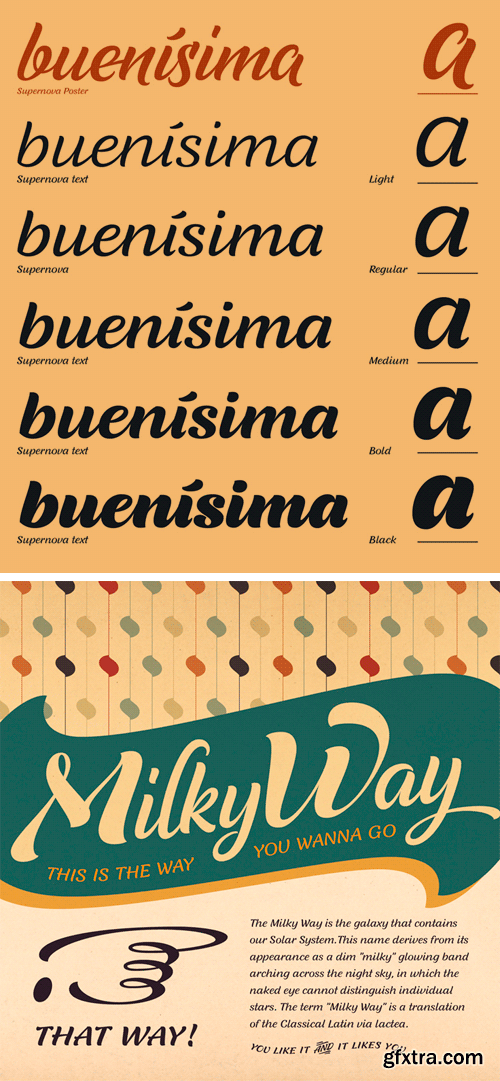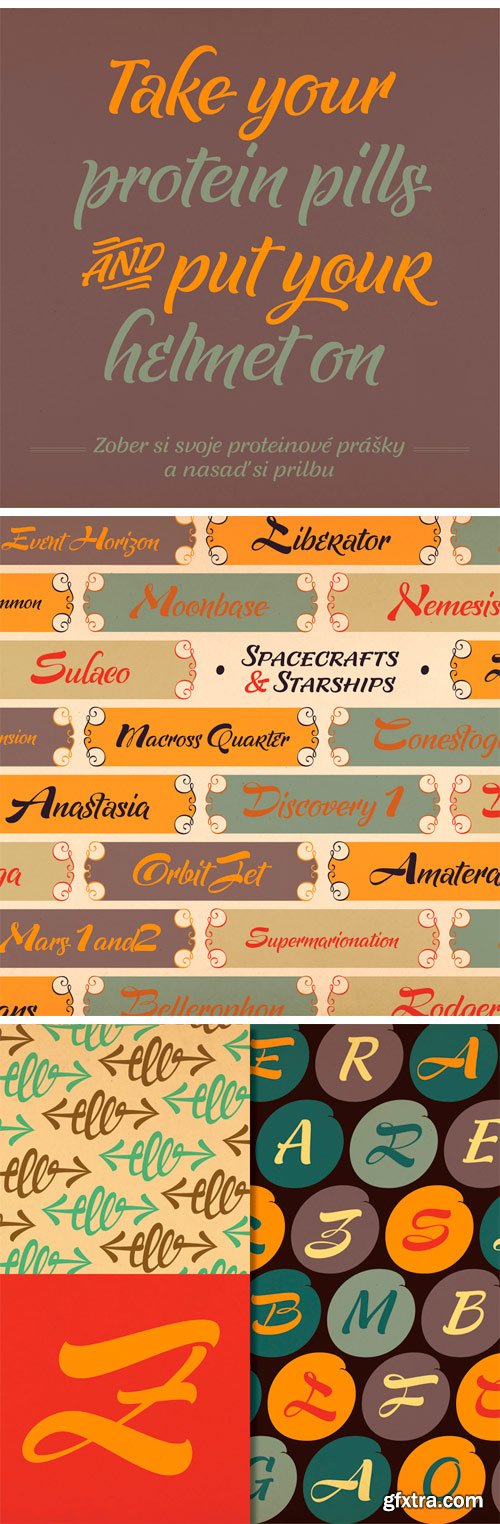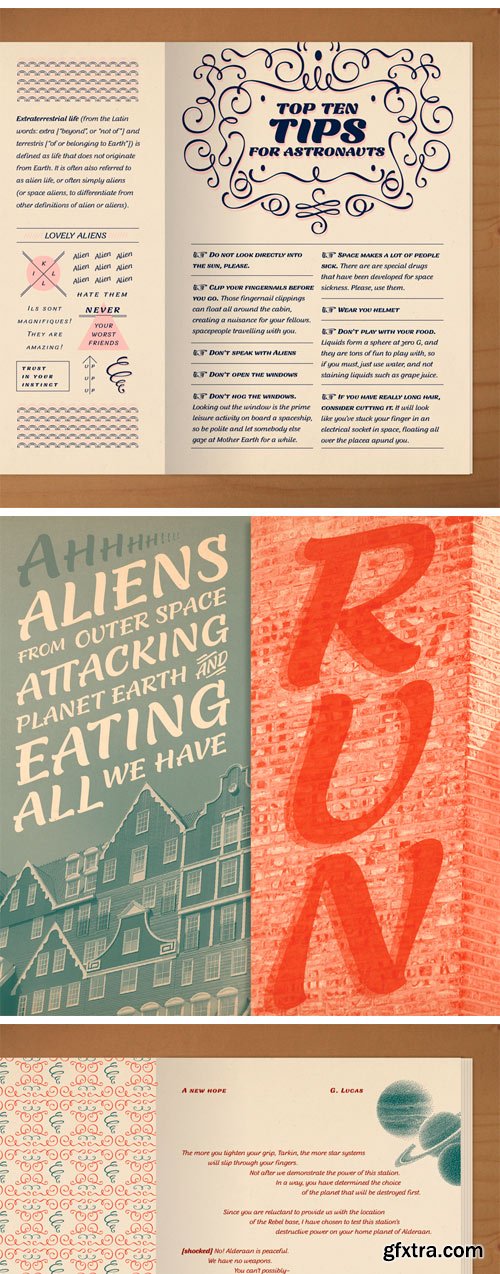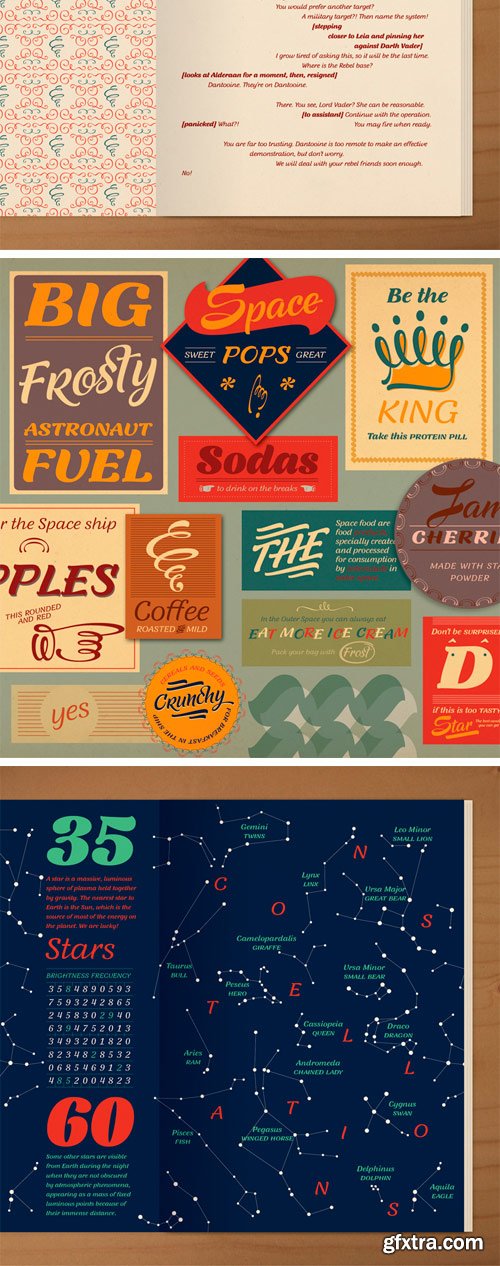
Supernova is a new family that combines the spontaneity of a script typeface with the versatility of multiple weights and cuts. The development of script typefaces has largely been limited to variations in shape and proportion (and with the advent of OpenType technology, the addition of alternate letterforms). Their application has continued to be primarily linked to their emotional attributes, while roman types predominate in body texts. Supernova takes a step in a different direction and was conceived as a script typeface family comprised of several weights and cuts, including a versatile, eye-catching display version and a highly legible body-text version with five weights.